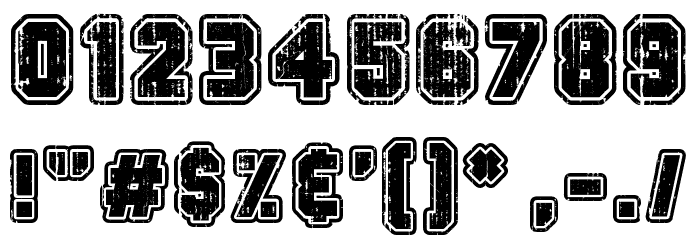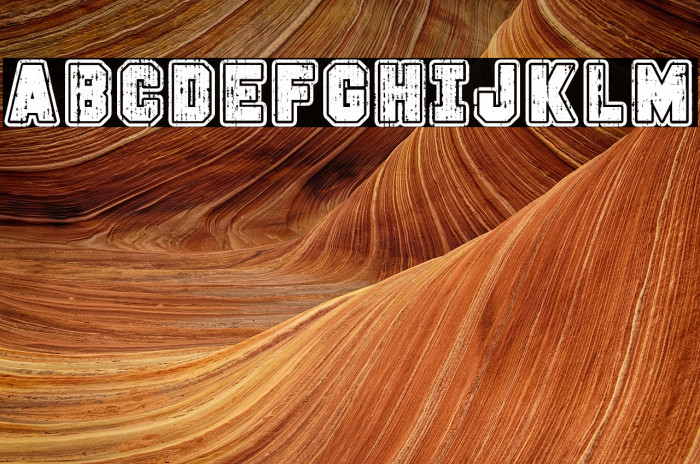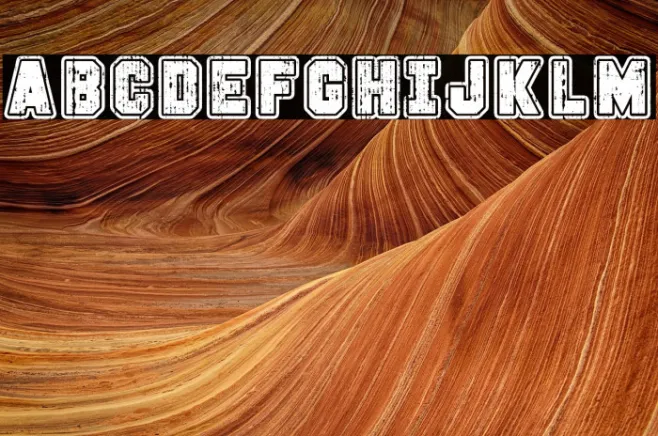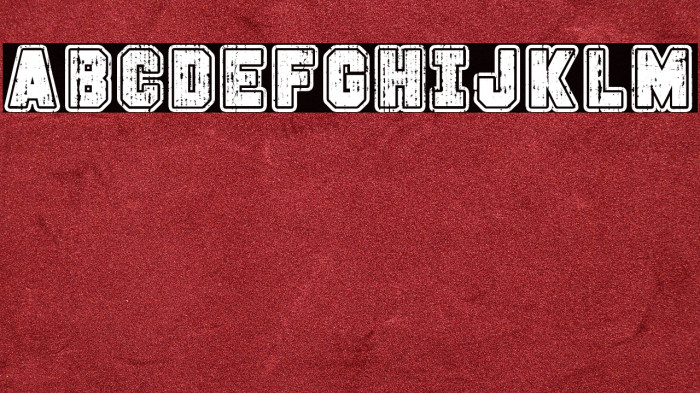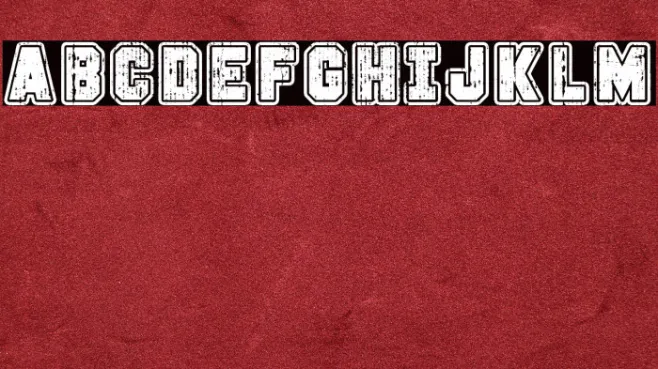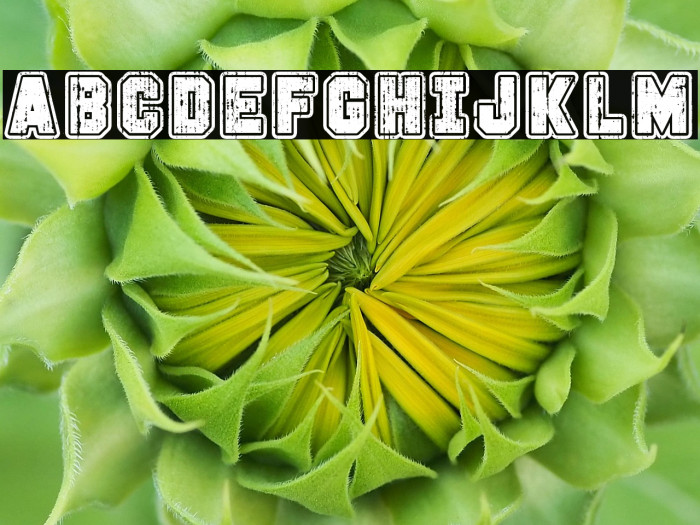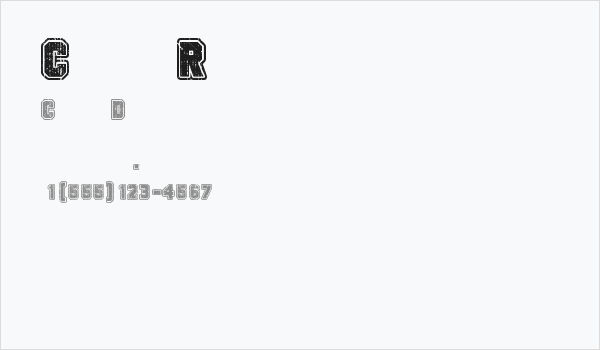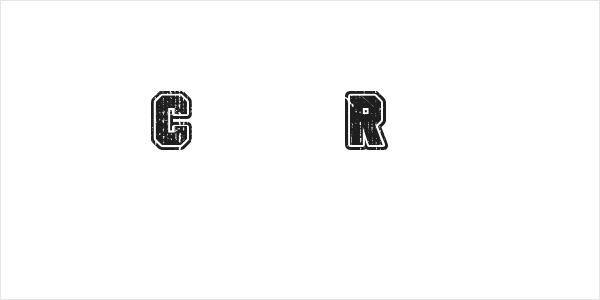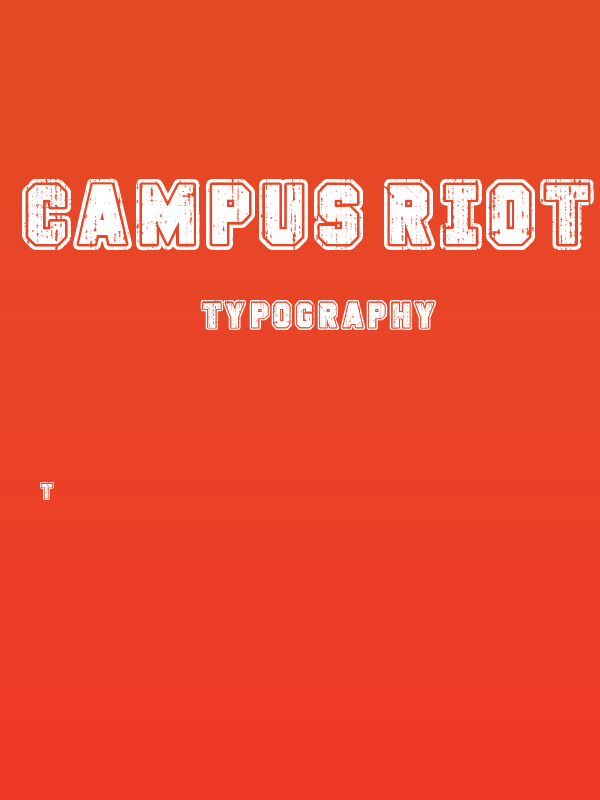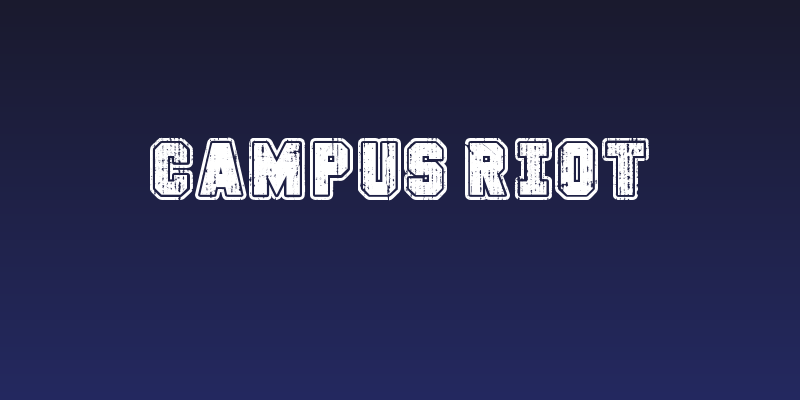
Campus Riot Font
Campus Riot Description
This font features a bold, distressed style that gives it a rugged, vintage appearance. The characters are blocky and uppercase, with a textured effect that suggests wear and tear, adding a sense of history and character. The numbers and special characters follow the same design, maintaining consistency across the set. This font is ideal for projects that require a strong, impactful visual presence, such as posters, headlines, or branding materials that aim to convey a sense of authenticity and grit. The spacing between characters is normal, allowing for readability while maintaining its bold aesthetic.